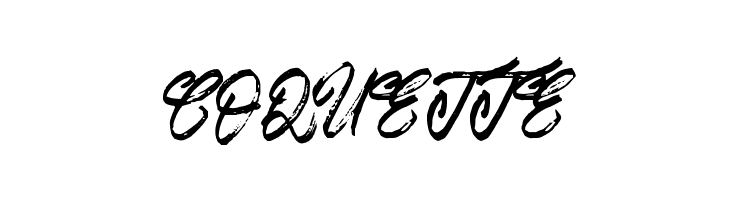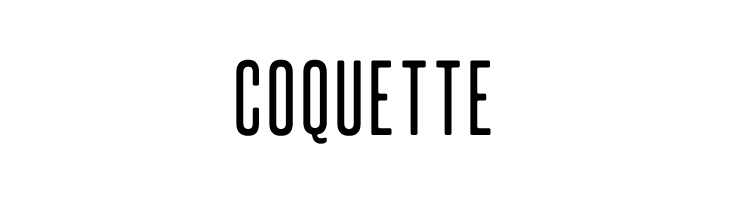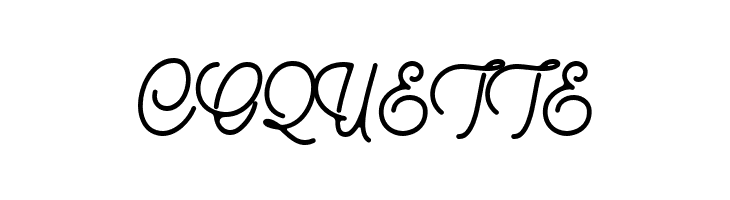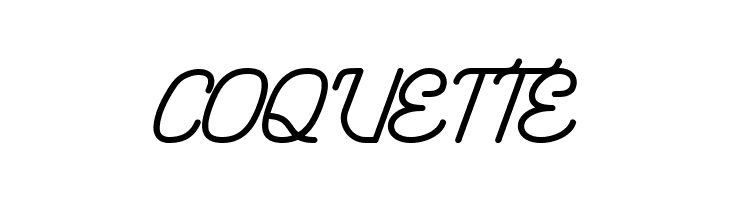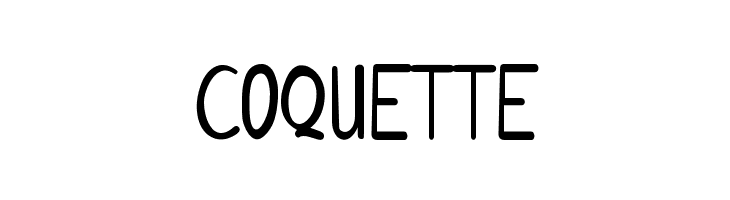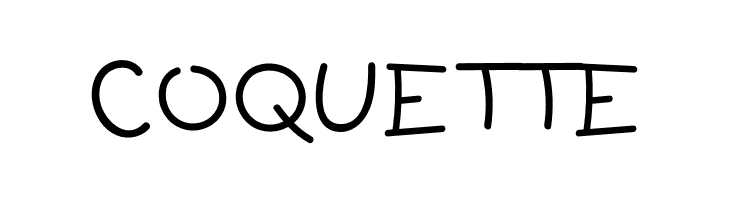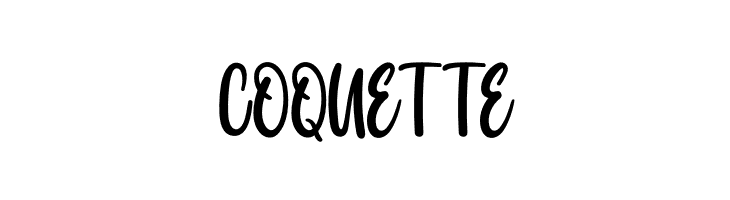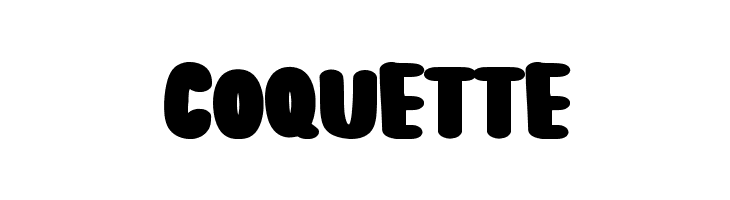
A bold, expressive handwritten font with fluid, dynamic strokes.
A smooth, flowing script font with interconnected characters and elegant flourishes.
A monoline, rounded script font with a casual, handwritten style.
A bold, textured script font with a brush-like, expressive style.
A tall, narrow font with a modern, professional style, ideal for impactful headlines.
A playful, hand-drawn font with a casual and friendly style.
A bold, rounded font with a playful and friendly style.
A playful, handwritten font with a quirky and whimsical style.
A bold, rounded font with a playful and friendly style.